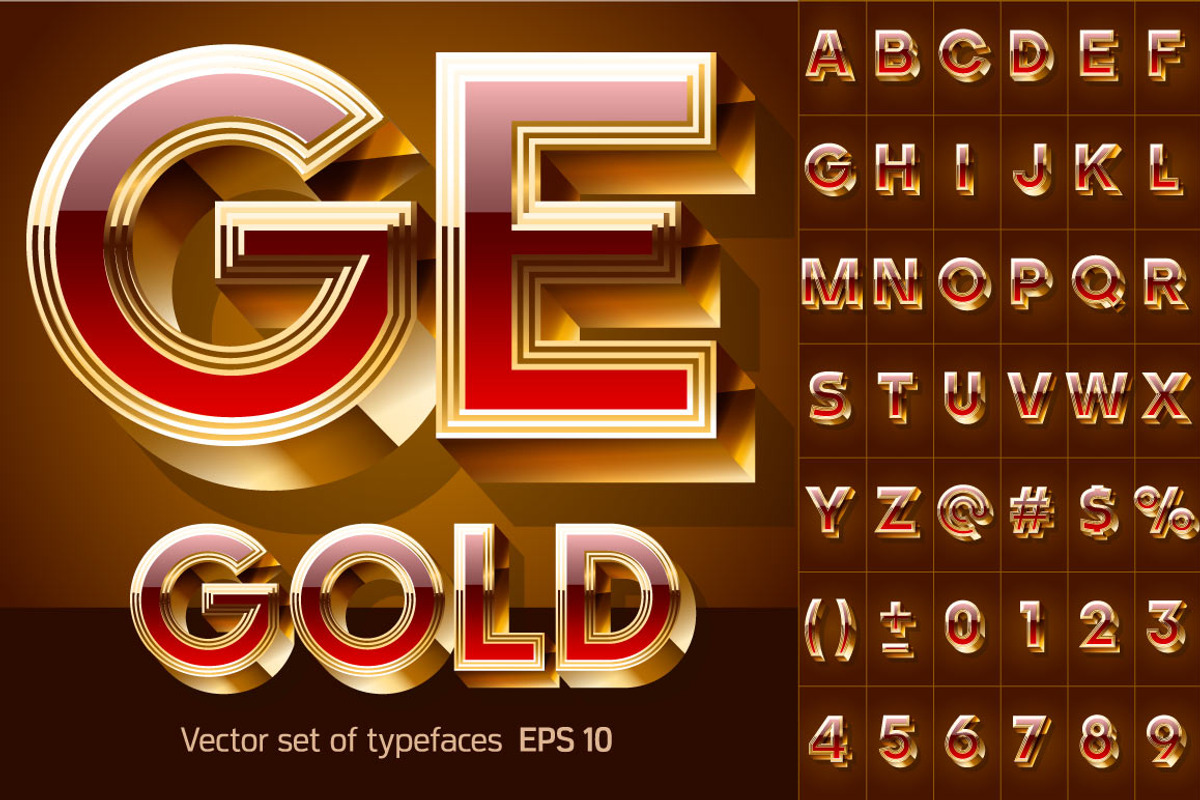
Illustration of chic golden 3D font
This is a unique vector letters (typefaces) with exclusive fonts.
Attention! This is not the fonts. This is vector objects.
Why Illustration of chic golden 3D font is worth a look
Illustration of chic golden 3D font by popskraft fits naturally into Editorial graphics, posters, social visuals, brand projects.